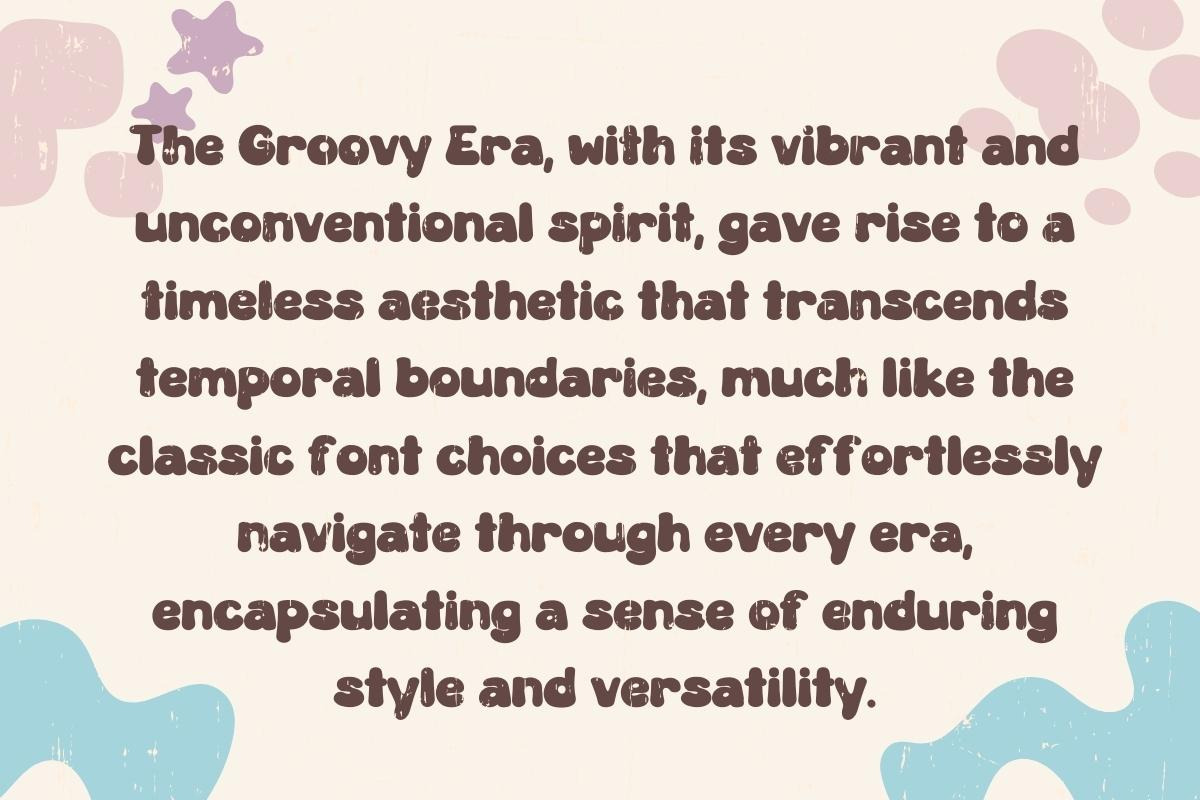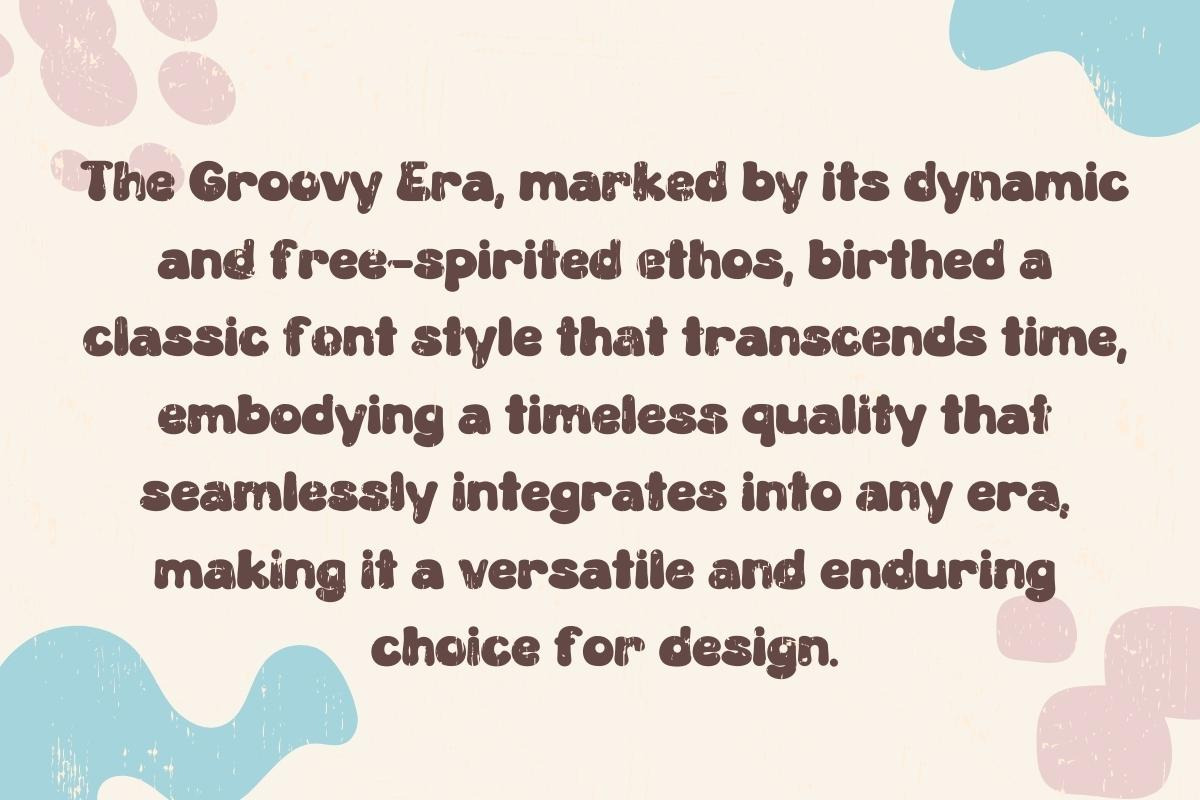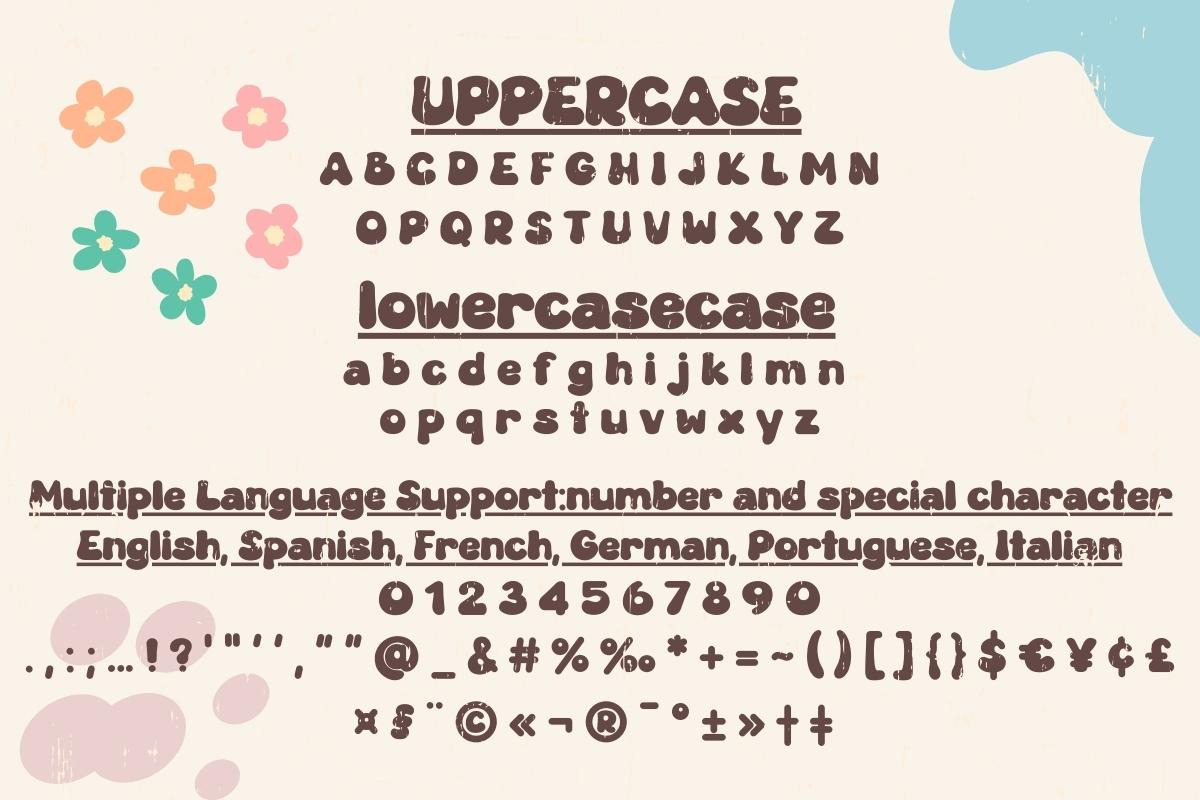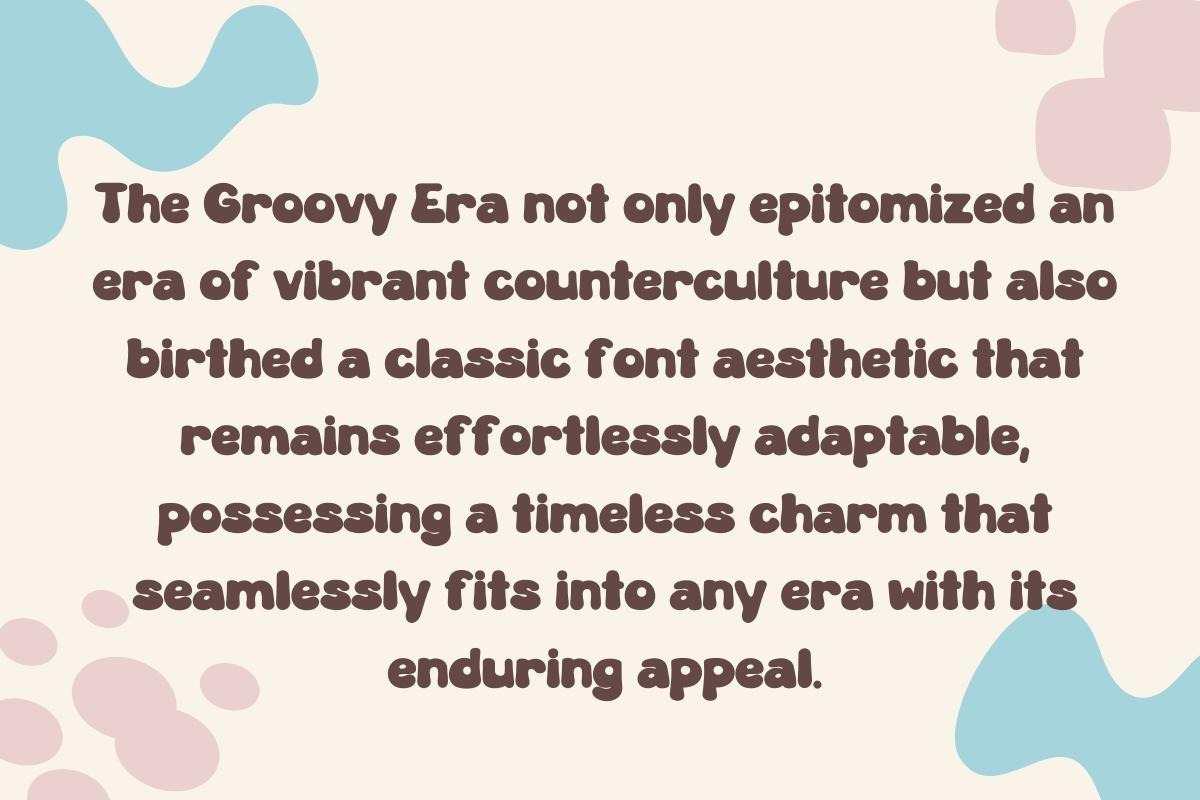
Groovy Era - Handwritten
Step into the nostalgic allure of the Groovy Era font, a timeless and classic choice that beckons designers to infuse their creations with a touch of enduring charm. Embrace the versatility of this font, effortlessly bridging the past and present, making it the perfect companion for any era of design inspiration.